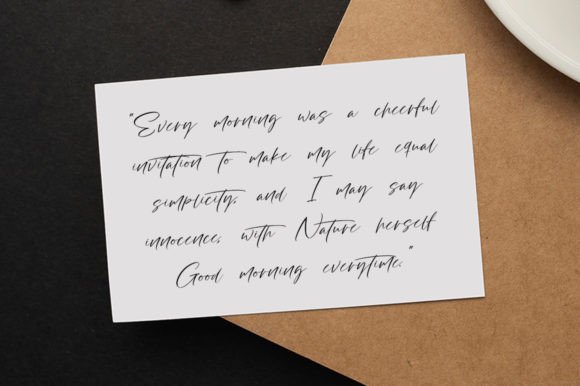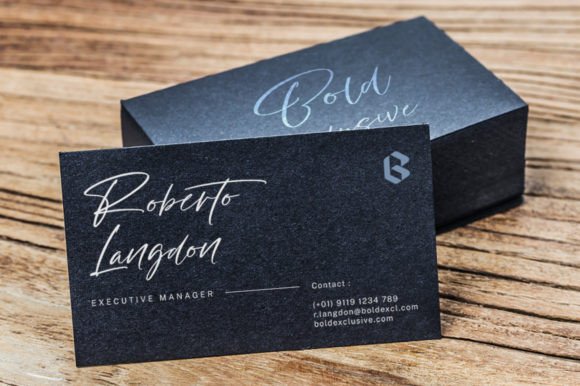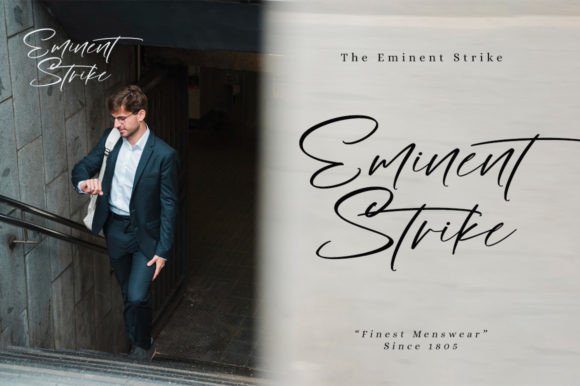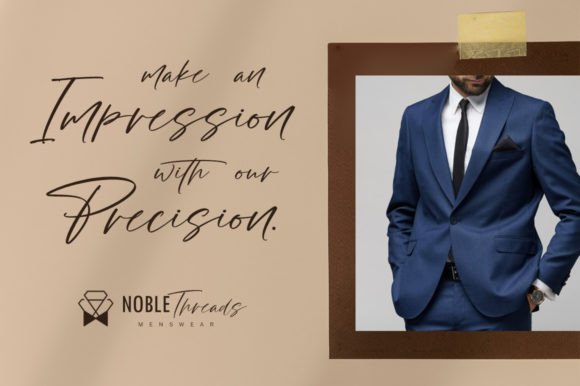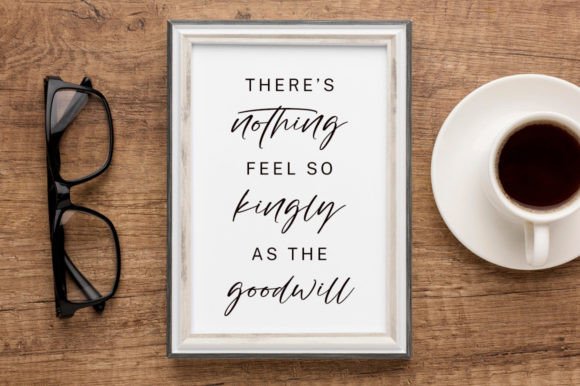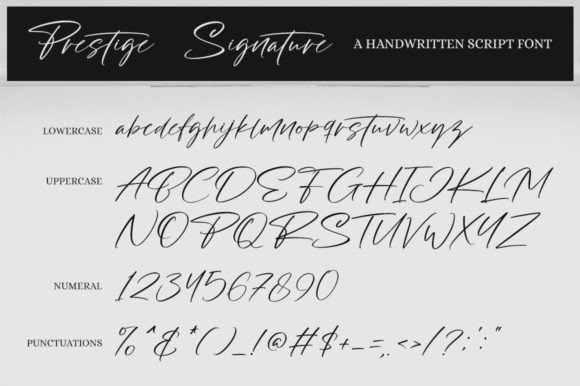
Introduction to Prestige Signature Font
Prestige Signature is a beautiful, well-balanced, and graceful script font.
Prestige Signature is a beautiful, well-balanced, and graceful script font. It is defined by smooth curves and is perfect for fashion branding or editorial designs
Prestige Signature Font offers exceptional quality and versatility, making it a valuable addition to your design toolkit. Whether you’re creating for personal projects or commercial use, Prestige Signature Font delivers professional results.